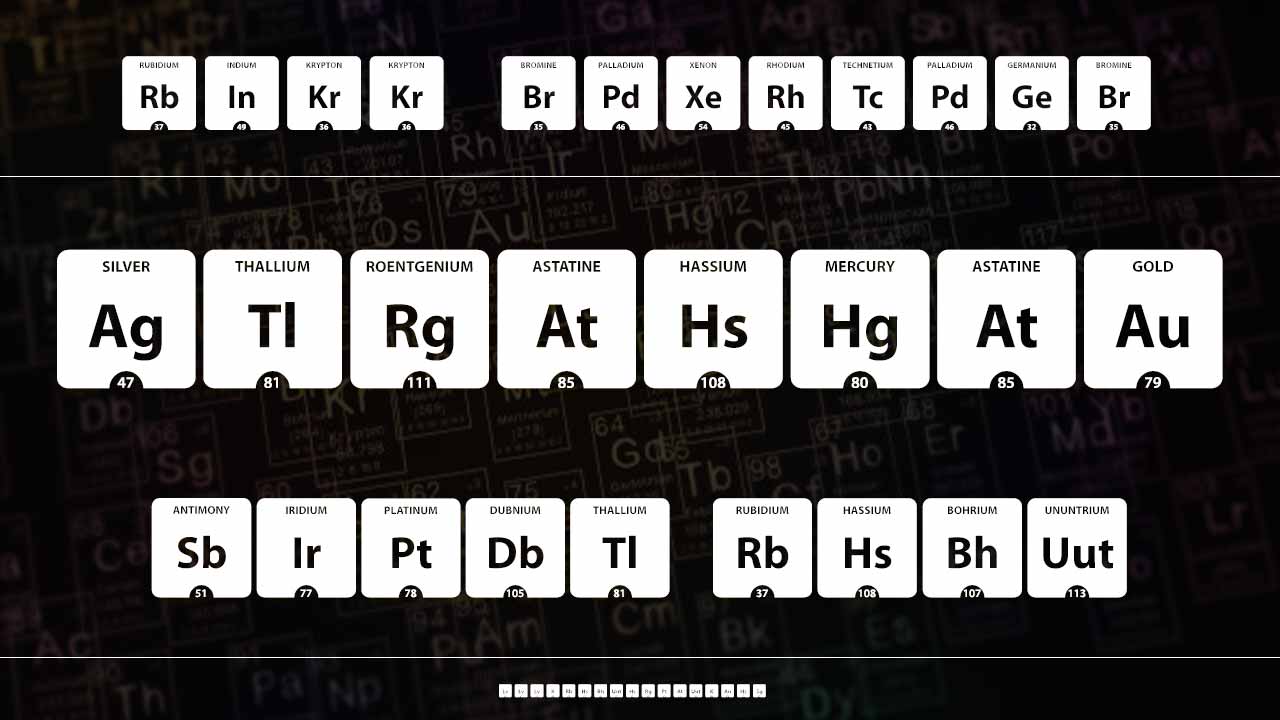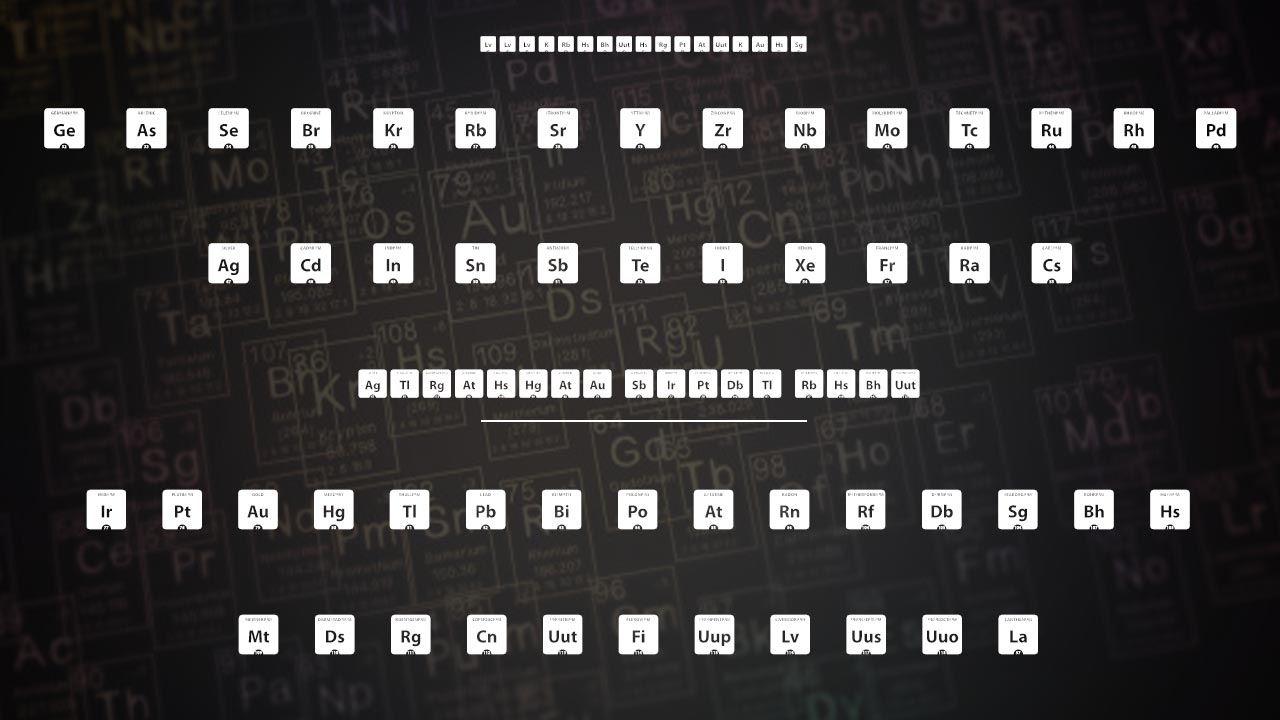
The Periodic Table of Elements font, designed by Woodcutter, offers a unique and creative way to incorporate science into your designs. With its use of chemical element symbols, this font brings the periodic table to life in a visually appealing way. Whether you’re working on a science-themed poster, educational materials, or any project where you want to reference the building blocks of matter, this font adds an engaging touch.
Why Choose The Periodic Table Font For Your Projects?
The Periodic Table of Elements font is more than just a typeface. It’s a functional tool that adds style and clarity to any design project. This font transforms text into chemical elements, using symbols like atomic number, atomic mass, and element symbols to convey scientific data creatively. Whether you’re designing educational content or making fun, science-inspired artwork, this font has endless possibilities.
- Create Text with Element Symbols: When you type your text using the Periodic Table font, the words will be transformed into element symbols. For example, the word “science” would appear as SiCnCe. This is perfect for creating educational designs or adding a creative touch to your work.
- Use for Scientific and Educational Content: The Periodic Table font is ideal for creating educational infographics, posters, or other materials that involve chemistry and science. The inclusion of atomic numbers and element symbols in your text makes the design informative while still visually engaging.
- Combine with Other Fonts: Pair the Periodic Table font with other fonts to enhance your design. Using more regular fonts for the body text and decorative fonts for headings can create a balance between functionality and style.
- Experiment with Layouts: When using this font, be mindful of spacing and alignment, especially if you’re creating designs in columns or tables. Pay attention to how the symbols interact with each other in the layout to ensure the text remains legible.
Font Family And Typeface Options
The Periodic Table of Elements font is part of a larger font family that includes a variety of styles. Here are some options you can use for different design needs:
Font Family Names
| Font Family | Description |
| Periodic Table of Elements | The main font uses element symbols in place of letters. |
| Basic Periodic | A simplified version with basic symbols for clarity. |
| Periodic Table Extended | An expanded version with additional scientific symbols and glyphs. |
| Element Display | A bold and high-impact version for prominent headings. |
Practical Applications Of The Periodic Table Font
The Periodic Table font can be applied in various ways:
- Educational Posters: Create posters that use atomic numbers and chemical element symbols to display information in a fun, engaging manner.
- Science Projects: Whether for a classroom project or a science fair, this font adds a creative, thematic look to your materials.
- Infographics: Turn complex scientific data into easy-to-understand visualizations using the font’s symbols to represent key elements.
- Web Design: Enhance a website dedicated to science or education by incorporating the Periodic Table font into your web content. This can be used in blog posts, headings, or even on product pages.
- Merchandise: Use this font on t-shirts, mugs, and other products for a fun, scientific twist on everyday items.
Benefits Of Using The Periodic Table Font
- Unique and Creative: The periodic table font adds a fun, creative aspect to any project.
- Educational: Perfect for educational materials, helping to make chemistry more engaging for students.
- Versatile: Use it in print materials, digital designs, or even on merchandise. It can adapt to various design contexts.
- Modern Appeal: The font has a clean, modern look that works well in science-based content and projects.
Font Pairing Ideas
Pairing fonts can enhance your design. Here are some great font combinations:
- Roboto + Periodic Table of Elements: The clean, modern lines of Roboto balance out the scientific symbols of the Periodic Table font.
- Georgia + Periodic Table of Elements: This serif font provides a more traditional feel that pairs well with the bold element symbols.
- Courier New + Periodic Table of Elements: Combining typewriter fonts with the Periodic Table font creates a vintage, educational aesthetic.
4.Can I Pair The Periodic Table Font With Other Fonts?
Yes, you can pair it with other fonts like Roboto, Georgia, or Courier New for a balanced design.
5.What Type Of Projects Is This Font Best For?
The font is ideal for scientific posters, infographics, educational content, websites, and merchandise.